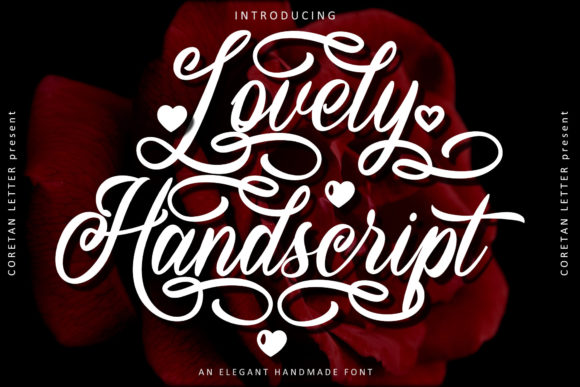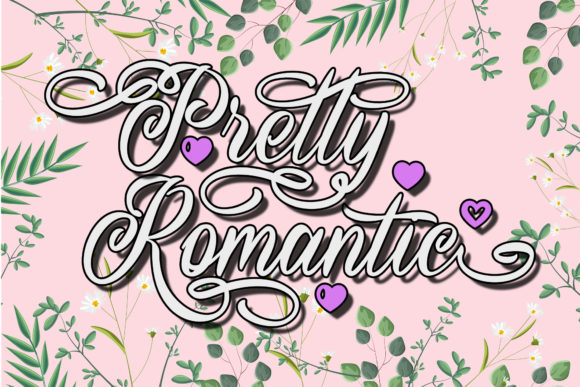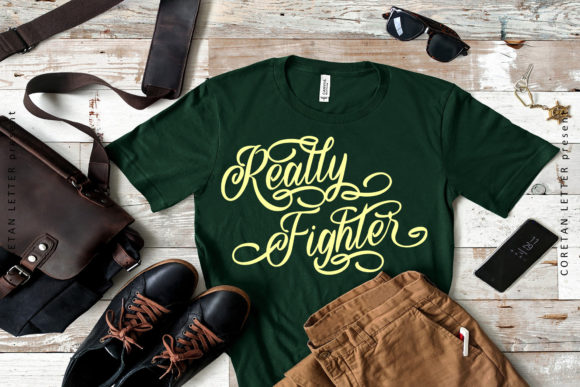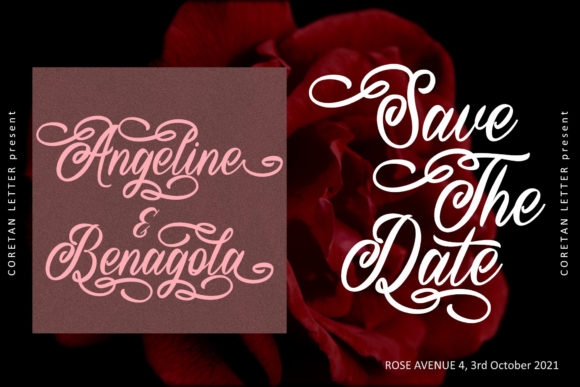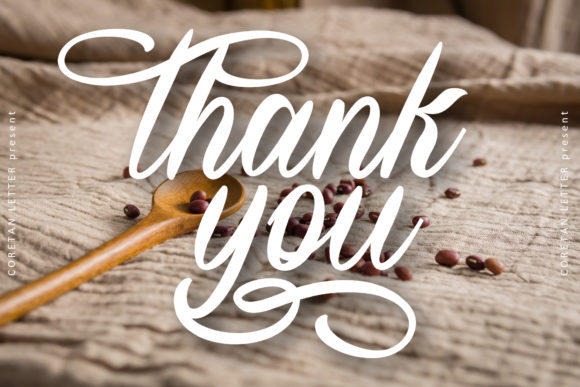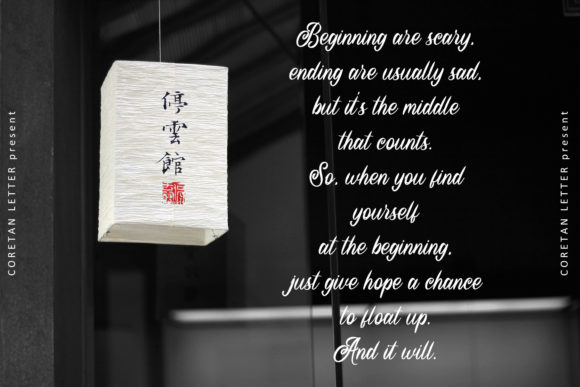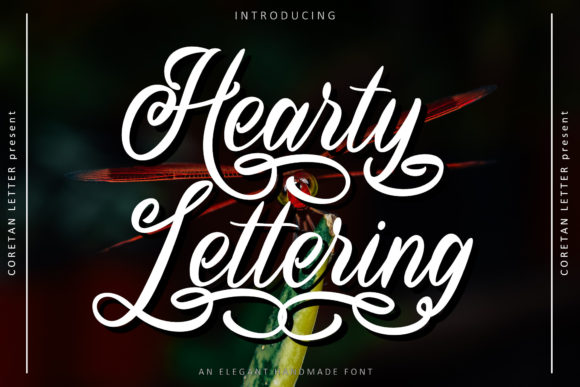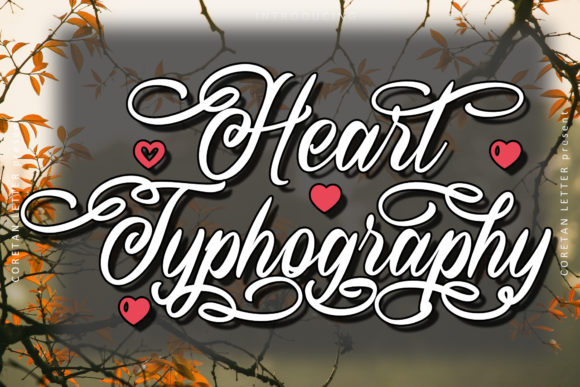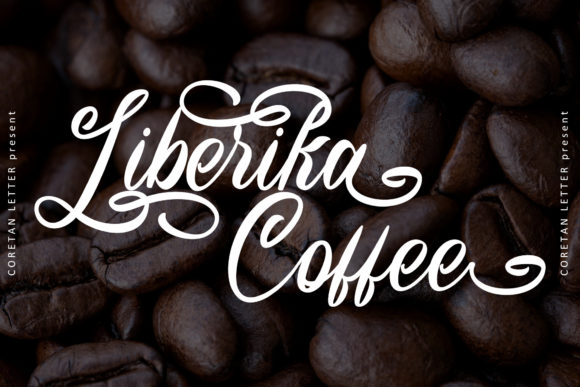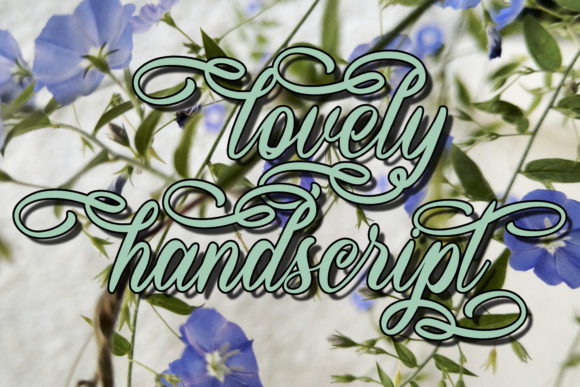
Lovely Handscript Font
About Lovely Handscript Font
Lovely Handscript is a modern handwritten font that looks natural, elegant, and perfect for any extraordinary project. It is suitable for various products such as invitations, product packaging, quotes, product design, crafter, labels, and more. This font is PUA encoded which means you can access all of the glyphs and swashes with ease!